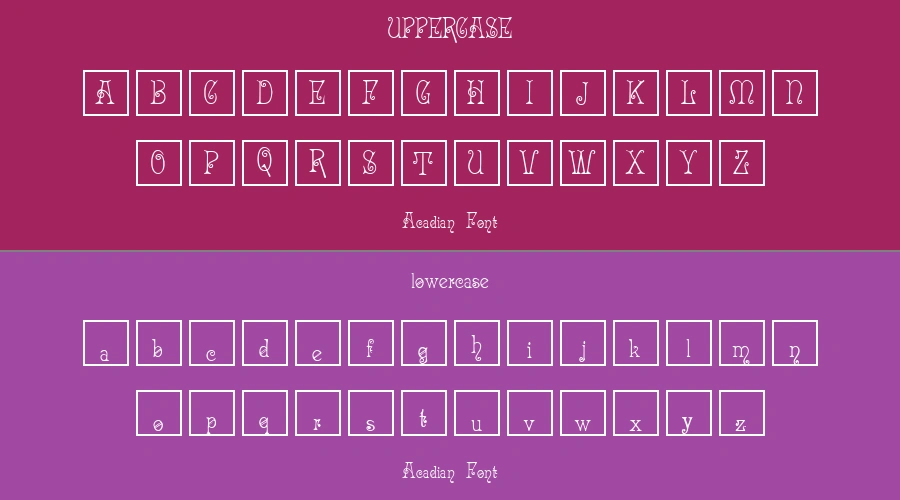
About Acadian Font
Acadian Font stands out for its distinctive combination of dynamic forms and excellent legibility. Ideal for event branding, it provides the adaptability and user trust that professional projects demand. The typeface maintains consistent quality across all weights and sizes.
Key features include refined systematic design and practical tabular figures, enhancing typographic expression. In packaging applications, Acadian Font demonstrates exceptional file optimization. The x-height proportion and market positioning contribute to its distinctive character and professional appeal.